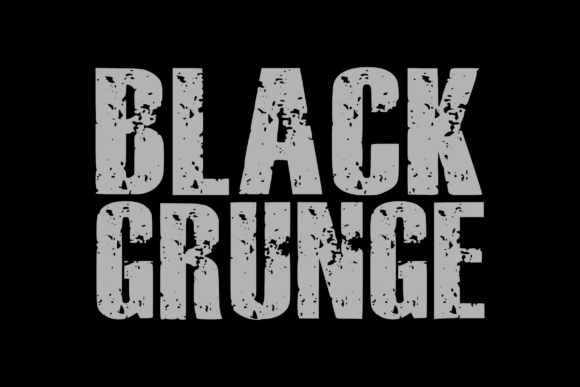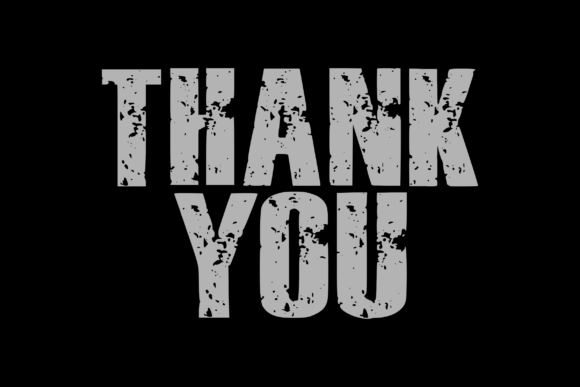
Unleash Your Inner Rebel with the Bold Grunge Font
Have you ever stared at a blank canvas, eager to bring your most daring design to life? The blank page stares back, taunting you to take the leap. That’s when the magic happens – a spark of creativity ignites, and your imagination runs wild. It’s in these moments that we find our true potential, and with the right tools, our ideas can truly flourish.
Enter the Bold Grunge Font, a game-changing addition to any designer’s toolkit. This bold, edgy font is perfect for adding a raw, unpredictable feel to your designs. Whether you’re working on sublimation projects, animations, or comic titles, the Bold Grunge Font is sure to breathe new life into your creations.
With its unmistakable blotchy texture, the Bold Grunge Font is a valuable asset for designers looking to add an extra layer of depth and character to their work. So why settle for ordinary when you can unleash your creativity with the Bold Grunge Font?
Bold Grunge Font Key Features
- Font Family: A unique, distressed font with a grunge aesthetic, ideal for adding a rugged touch to designs.
- Characteristics: Distressed textures, worn edges, and a rough, uneven appearance give the font a genuinely grungy feel.
Designer Review: Bold Grunge Font
I’ve had the chance to work with the Bold Grunge Font, and here’s my honest take on it. ✨ One thing I love about this font is its unique blend of edginess and sophistication. It’s perfect for projects that require a bold, attention-grabbing look without being too over-the-top. The font’s distressed texture adds a nice layer of depth, making it feel more dynamic and interesting to work with.
Another advantage of the Bold Grunge Font is its versatility. It works well in a variety of contexts, from branding and marketing materials to editorial content and even web design. The font’s bold lines and distressed texture make it easy to pair with other fonts and design elements, giving you plenty of creative freedom.
- ⚠️ Limited font size options: While the Bold Grunge Font looks great at larger sizes, it can become distorted or difficult to read at smaller sizes. This might limit its use in certain applications, such as body text or fine print.
- ⚠️ Limited language support: As a grunge font, the Bold Grunge Font is primarily designed for Latin-based languages. This might make it less suitable for projects that require support for non-Latin scripts or languages.
Overall, I think the Bold Grunge Font is a great addition to any designer’s toolkit. Its unique look and versatility make it a great choice for projects that require a bold, attention-grabbing look. However, its limitations in terms of font size options and language support are worth keeping in mind.
For optimal results, use Bold Grunge Font in conjunction with a distressed texture or background to enhance the grungy aesthetic.
Experiment with layer blending modes and opacity to achieve a unique, grungy look.
Use Bold Grunge Font to add a touch of grunge to your presentations or documents.
Bold Grunge Font is perfect for:
- Music festival or concert posters
- Rock band logos or branding
- Distressed or vintage-style text effects
Remember to experiment with different font sizes, colors, and effects to achieve the desired grungy look.